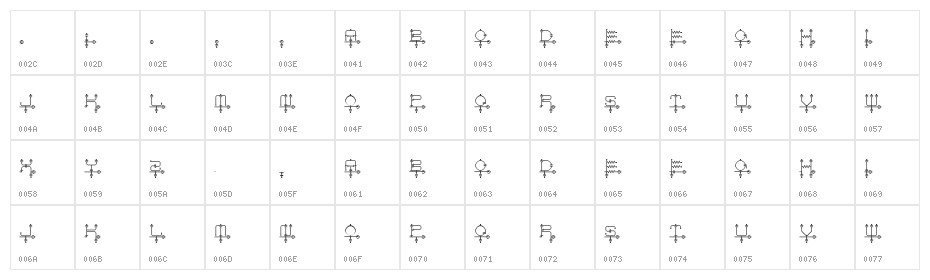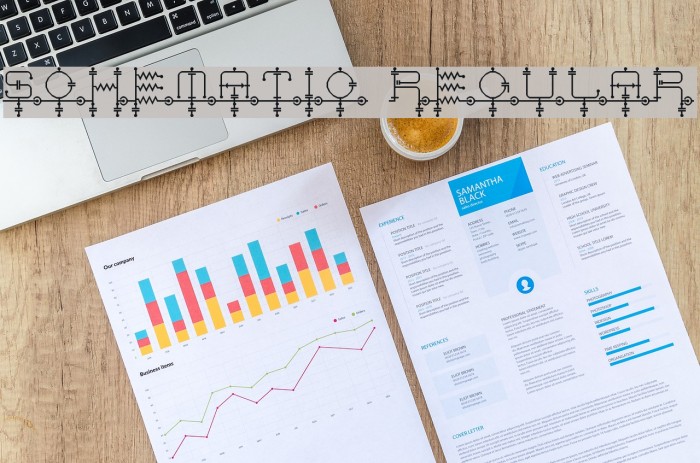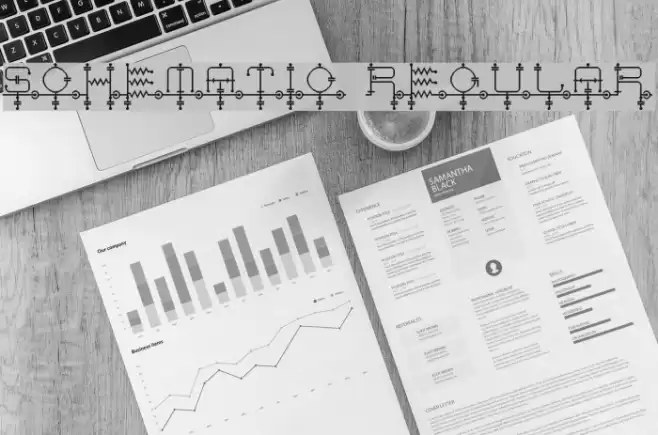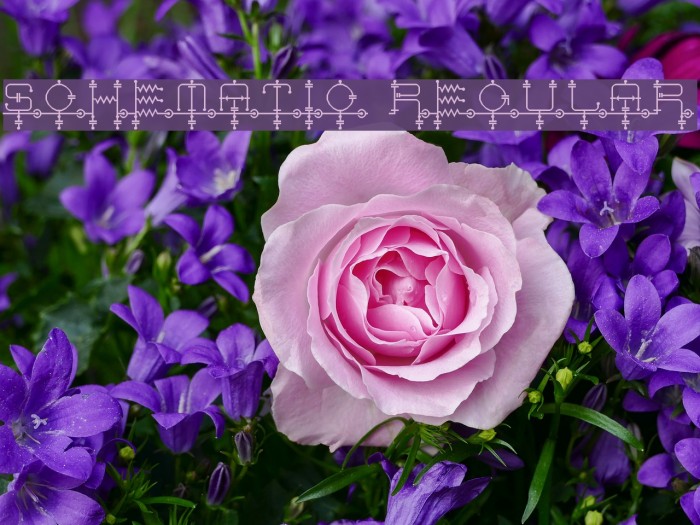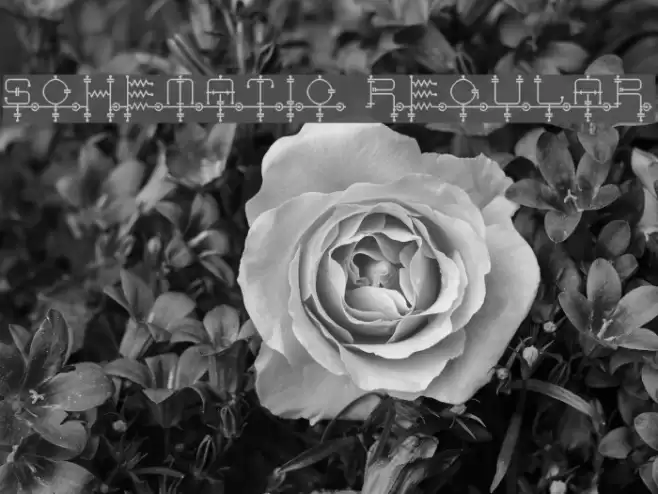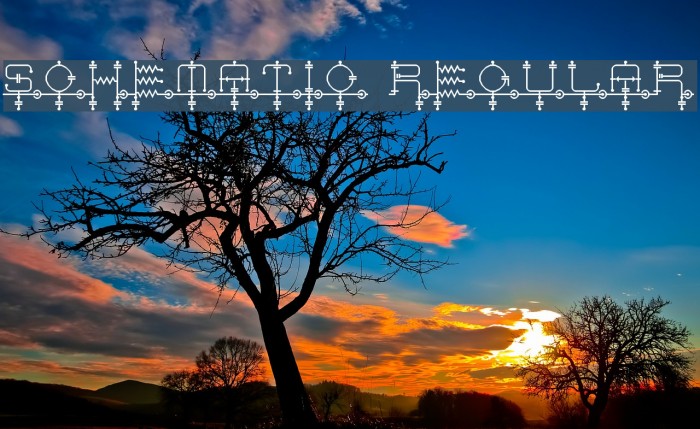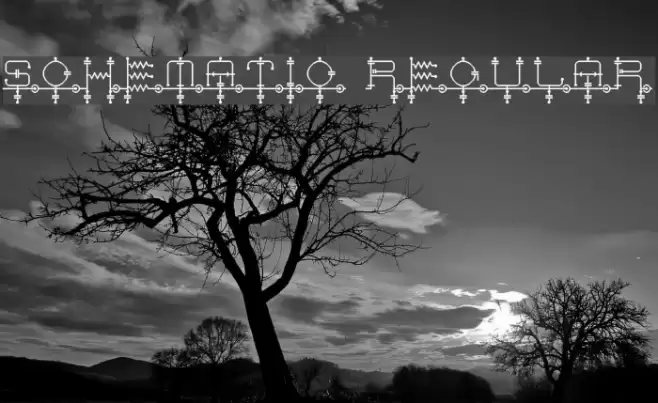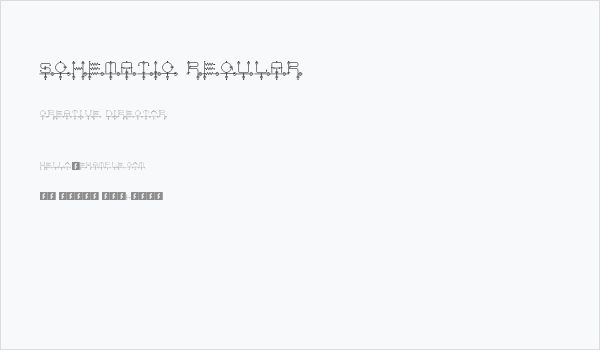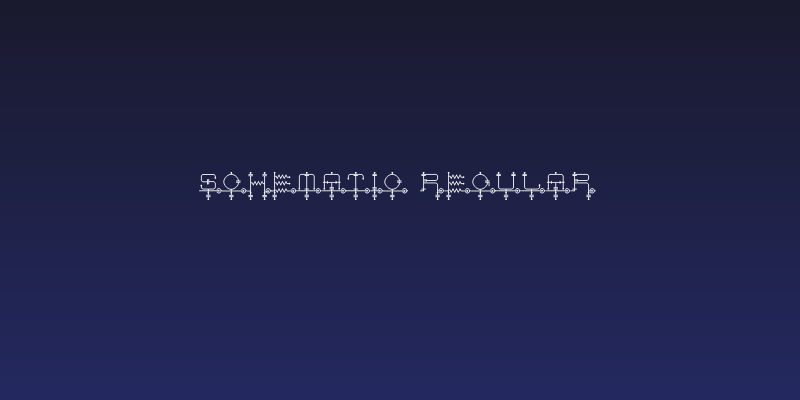
schematic Regular Font
schematic Regular Description
This font features a unique and intricate design inspired by electronic schematics and circuit diagrams. Each character is composed of lines, circles, and symbols reminiscent of electrical components, creating a highly decorative and technical appearance. The font maintains a consistent baseline with elements extending above and below, adding to its complexity. The characters are evenly spaced, ensuring readability while maintaining the intricate design. This font is ideal for projects that require a technical or futuristic aesthetic, such as technology-themed posters, science fiction book covers, or educational materials related to electronics.
| Overall Style | Technical, Futuristic |
| Proposed Projects | Technology-themed posters, science fiction book covers, educational materials on electronics. |